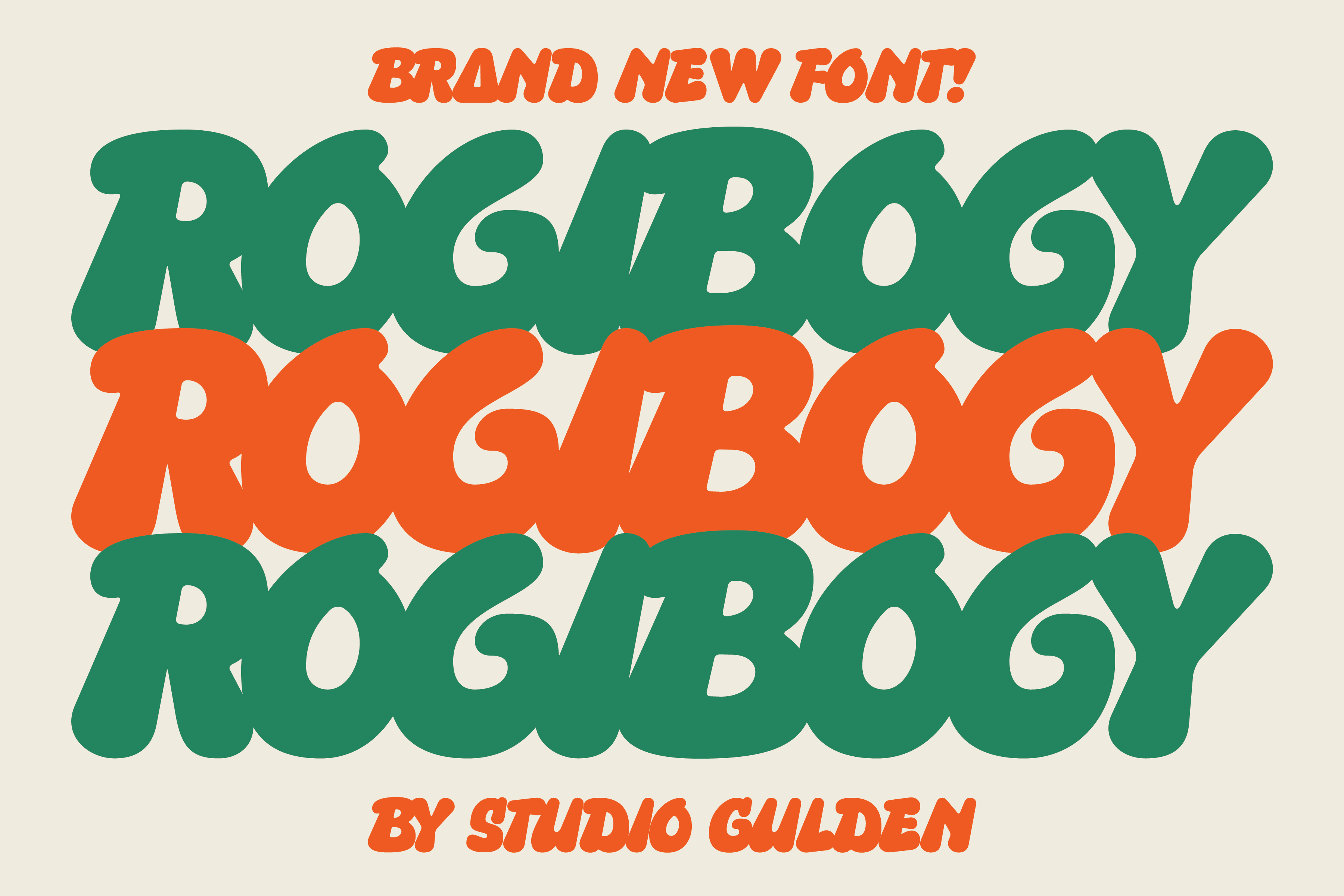
SG Rogibogy DEMO Font
About SG Rogibogy DEMO
Liven up your designs with the playful charm of SG - SG-ROGIBOGY! This whimsical font is perfect for adding a touch of cuteness to any project. Its bouncy characters and quirky letter options will make your text stand out.